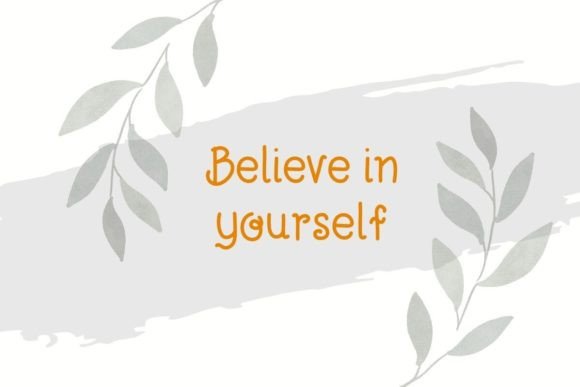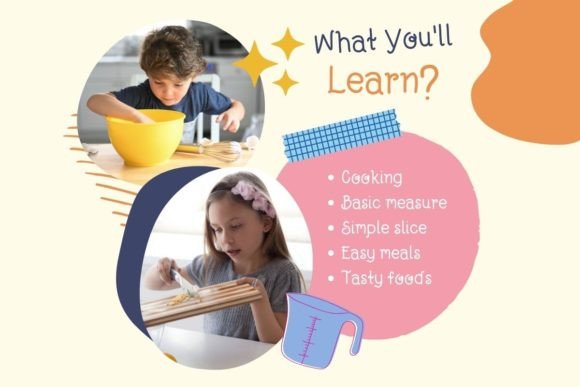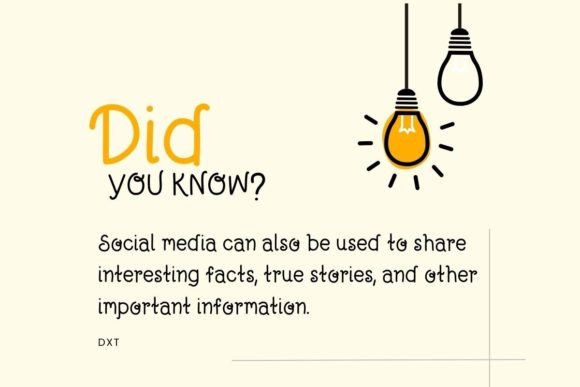
Introduction to Monkey Tail Font
Have you ever found yourself doodling in a notebook, trying to capture the perfect handwritten font for your creative project? I know I have! There’s something special about a handwritten font that adds a touch of personality to any design. For designers and artists, finding the right font can be a game-changer. It’s the difference between a good design and a great one.
That’s why I’m excited to share with you one of my favorite design resources: the Monkey Tail Font. This playful and fun handwritten font is perfect for digital note-taking and is versatile enough to be used in a variety of projects, from Procreate designs to blog posts and logos.
Key Features of Monkey Tail Font
- Unique and stylish typography with a transparent background, ideal for adding a touch of whimsy to your designs
- Monoline style with varying line weights, allowing for versatility in use and customization
- Perfect for use in digital designs, including logos, icons, and graphics, as well as print materials like business cards and brochures
- OpenType features, including stylistic sets and swashes, provide endless creative possibilities
Honest Review: Monkey Tail Font
I recently had the chance to experiment with the Monkey Tail Font, and I must say, it’s a real treat. This font is a fantastic addition to any designer’s toolkit, offering a unique and playful touch to creative projects.
What works well: ✨ The font’s design is quite versatile, making it perfect for various applications, from digital art to print materials. The high-quality design ensures that your projects will look polished and professional. I also appreciate the transparent background, which makes it easy to layer and composite with other design elements.
- Wide range of use cases, from digital art to print materials
- High-quality design for professional-looking projects
- Transparent background for easy layering and composition
Limitations: ⚠️ One potential drawback is the lack of customization options, which might be a letdown for some designers. However, for a free download, I think the Monkey Tail Font is an excellent resource.
Overall, I’m thoroughly impressed with the Monkey Tail Font. Its unique design and versatility make it an excellent addition to any designer’s design resource library. If you’re looking for a high-quality font to elevate your creative projects, I highly recommend giving the Monkey Tail Font a try.
For the best results, use Monkey Tail Font in creative projects that require a playful touch, such as children’s books, party invitations, or social media graphics. Experiment with different font sizes, colors, and combinations to add visual interest to your designs.